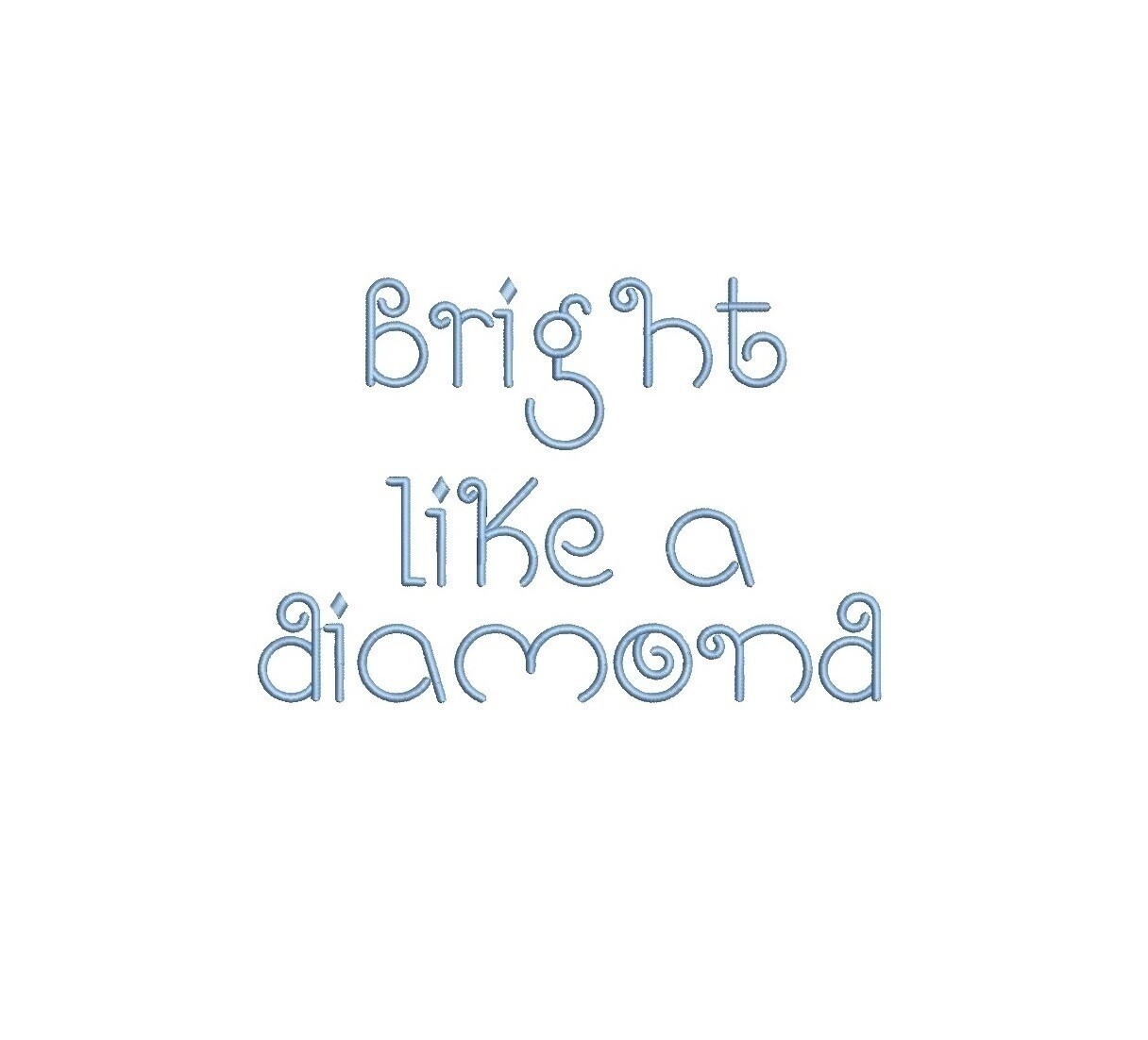
Shine bright with Bright Like A Diamond Regular ESA font, a radiant choice for your designs. This captivating typeface ensures seamless compatibility with Wilcom Studio e4.5.6 and Hatch 3 versions and above. Crafted with meticulous precision, its sparkling letterforms and elegant curves illuminate your projects. Elevate your designs with Bright Like A Diamond Regular ESA's versatility, perfect for logos, invitations, branding, and more. Let your creativity sparkle as you create dazzling designs with this font, tailored for Wilcom Studio e4.5.6 and Hatch 3 versions and beyond. Bright Like A Diamond ESA - a font that makes your creations shine.